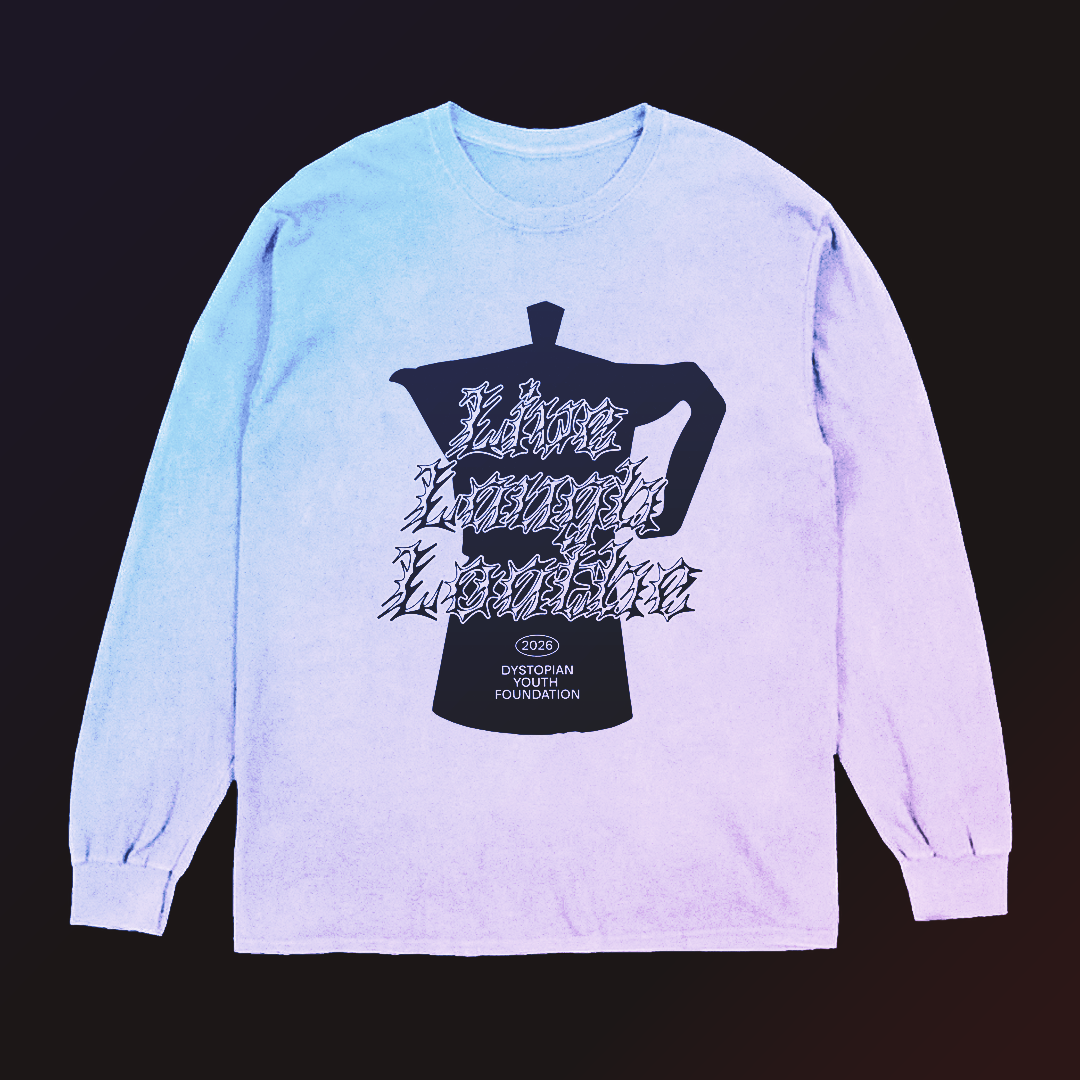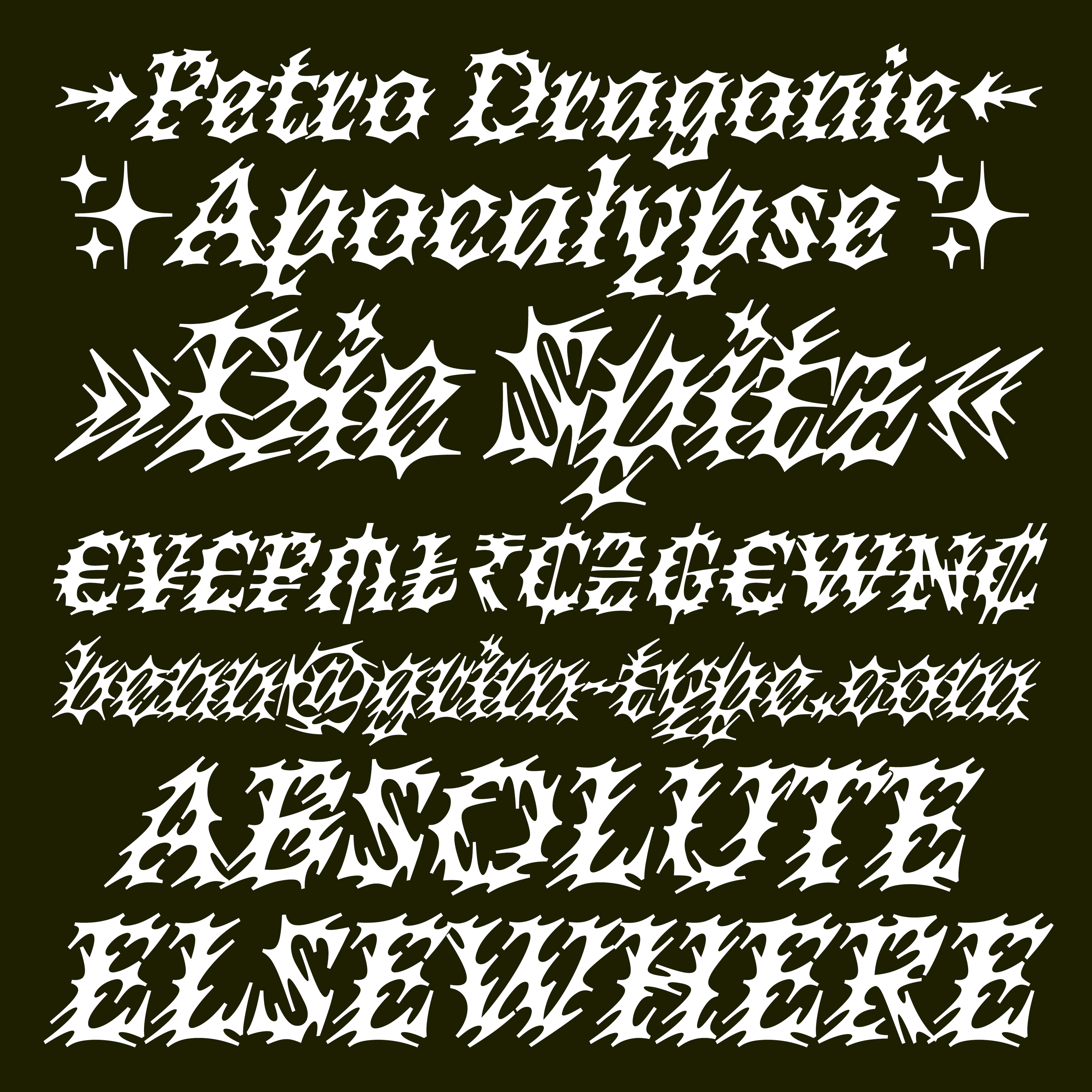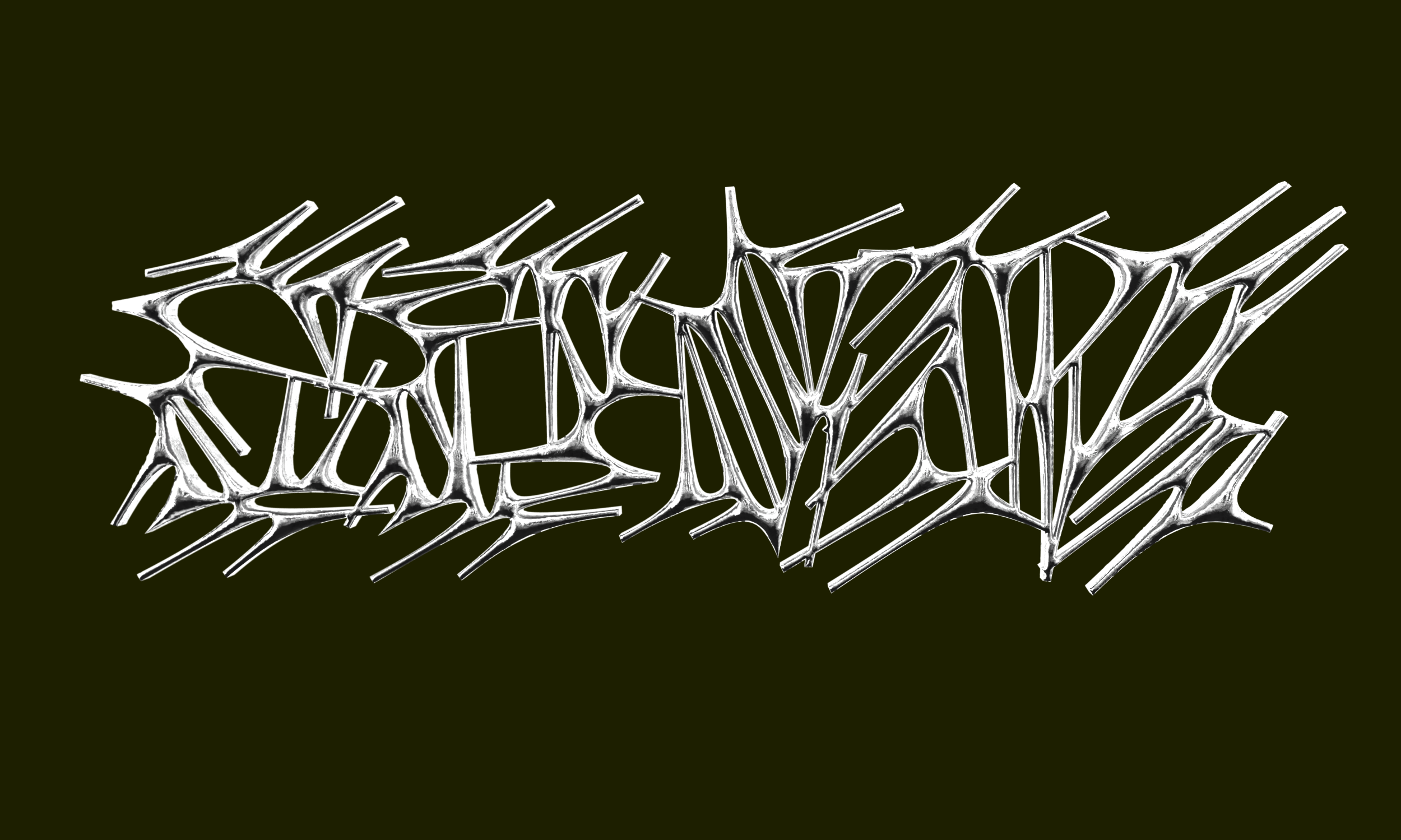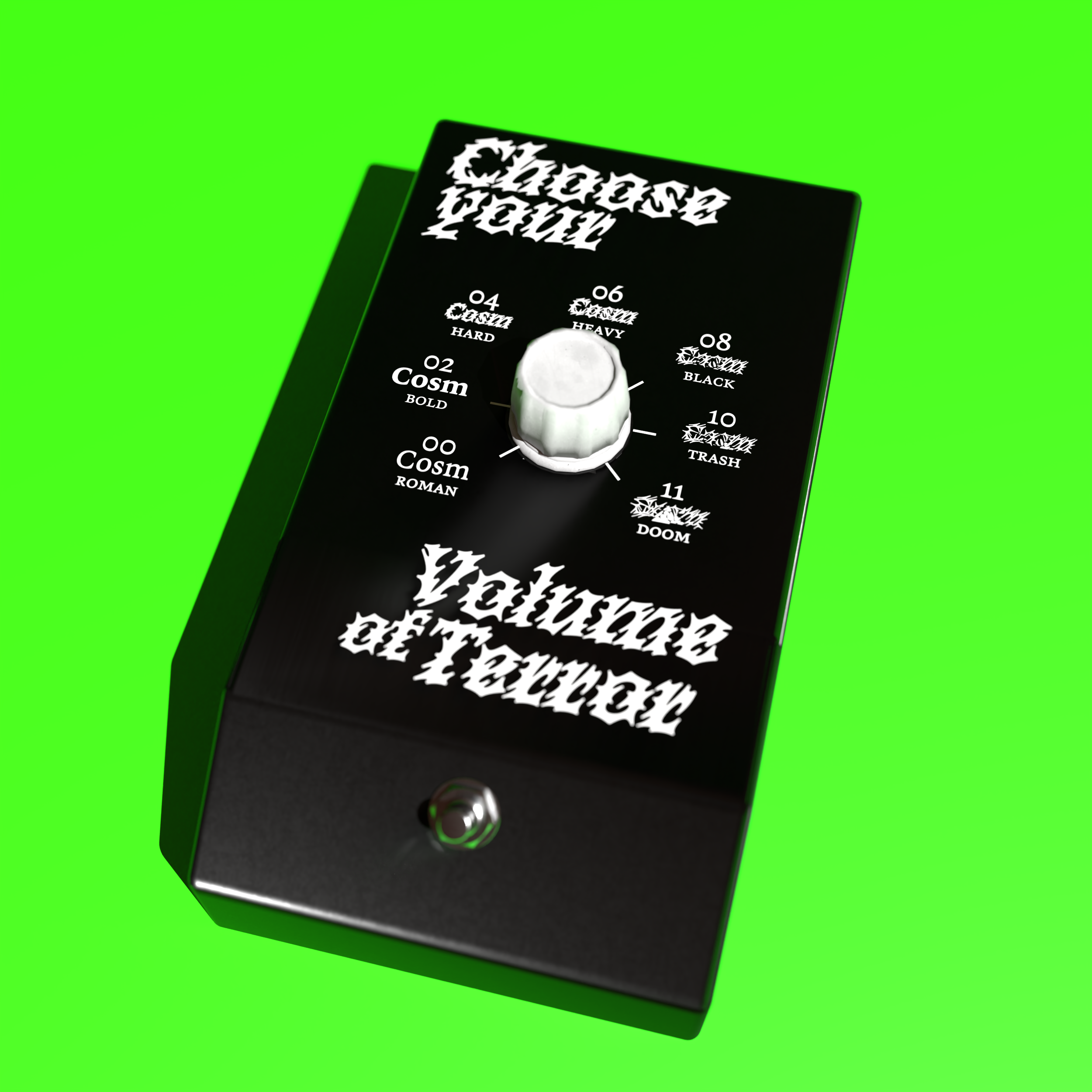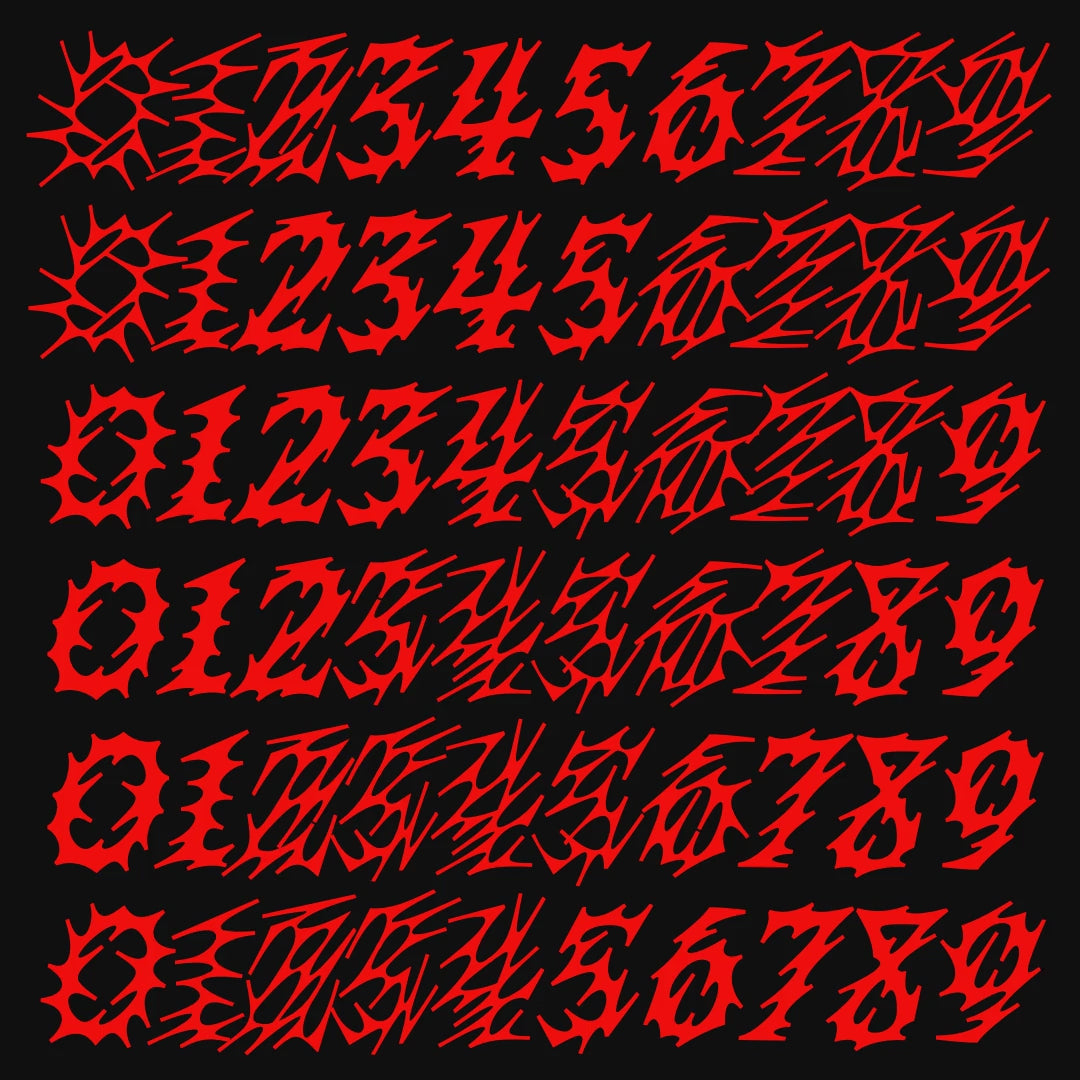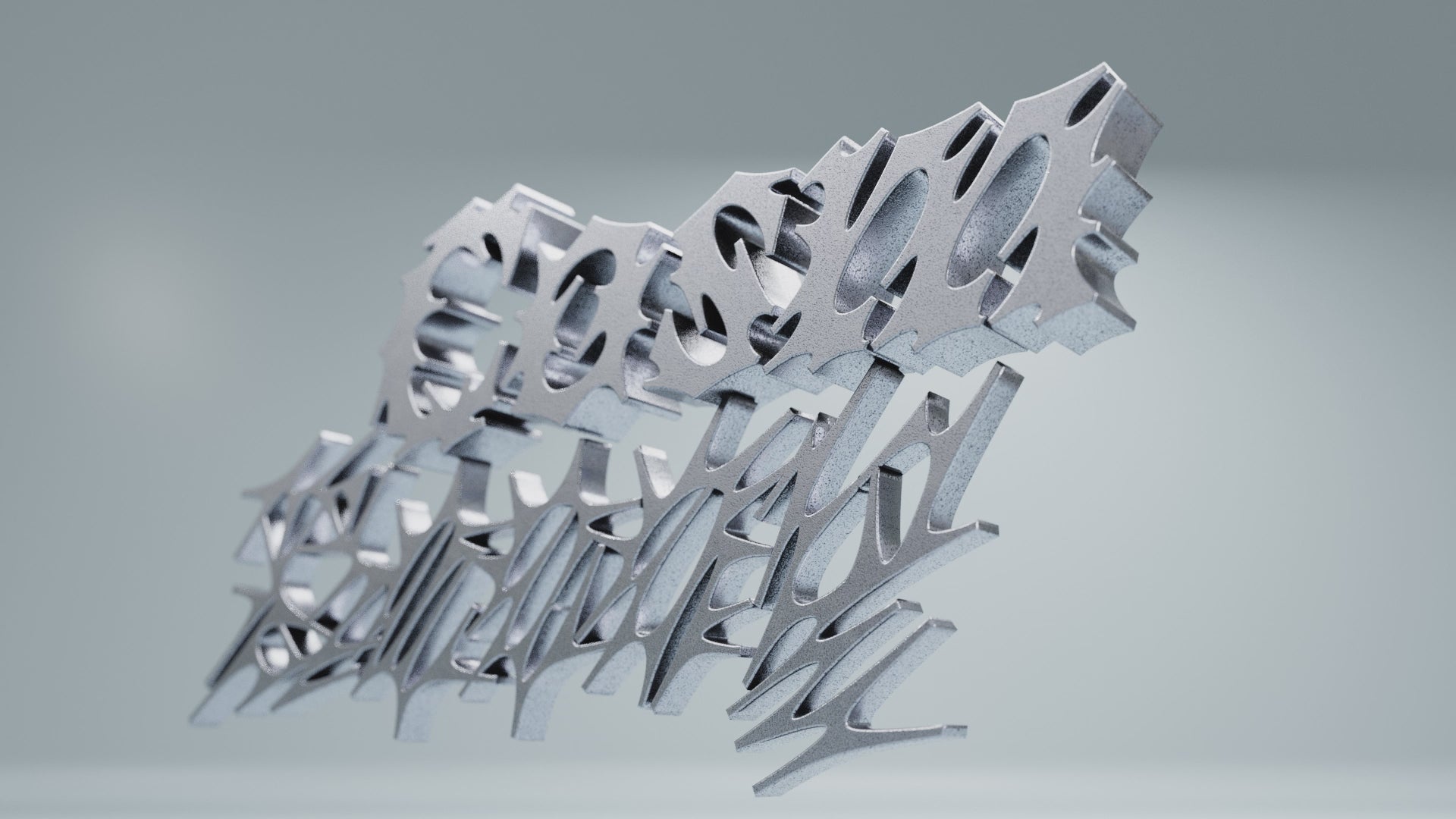
Cosm Decay
»I design every single letter to my property manager exclusively in Cosm Decay. My landlord is now terrified of me, and getting that rent reduction was zero effort. 10/10.«
— Anonymous Designer, on the verge of a burnout.
Cosm Decay
Born from a fever dream at TypeMedia22, Cosm Decay is a deliberate act of defiance. It guts the skeletal remains of blackletter and mutates them through a raw, synergistic process of custom coding and iterative drawing. No formal references, no safety net.
It’s more than a font—it’s a living glitch. Its variable nature lets you slide between structural form and chaotic decay, pushing letters to the very edge of legibility.